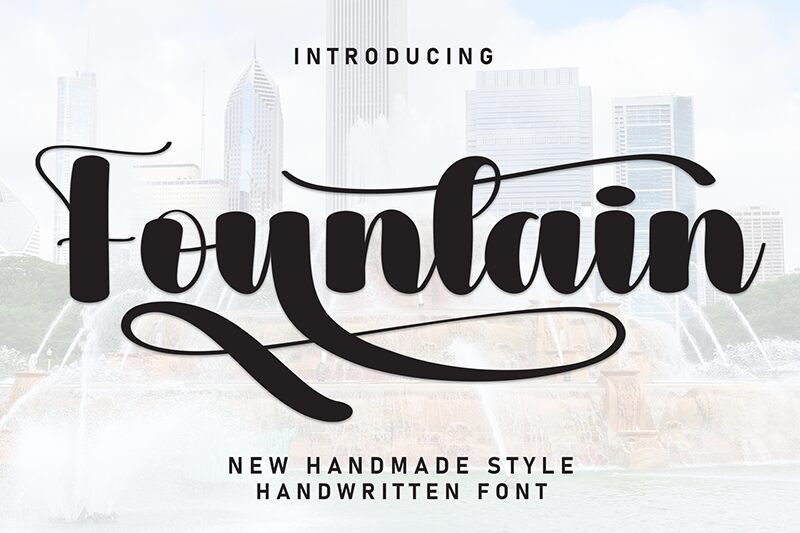
Fountain
Fountain font designed by Andi Moz is a brush bold free font with yet another expressive character for that next typography project of yours. This chic elegant retro-inspired typeface can be described at best as decorative with its flowing characteristics being the cornerstone of its beauty.
Use it in branding, logos, apps and web design, packaging, posters and other print projects. With a little more discretion make use of this typeface in social media posts or smaller text sizes in magazines and books.